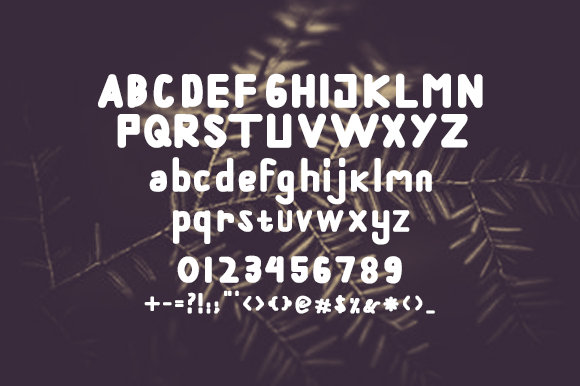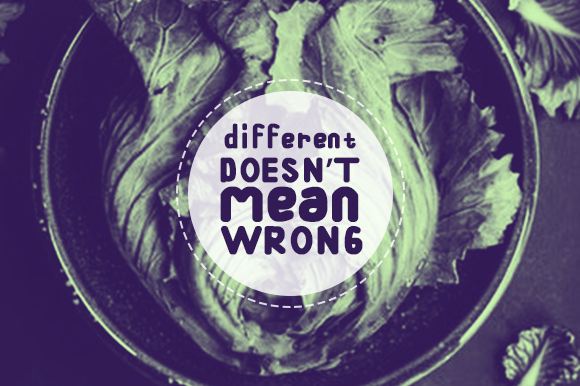
Alesha Font
About Alesha Font
The Alesha is a striking handwritten font. Its fun and clean style was created using a pencil and marker.
It’s perfect for your posters, comics, quotes, birthday cards, wedding invitations, and every other design which needs to stand out.